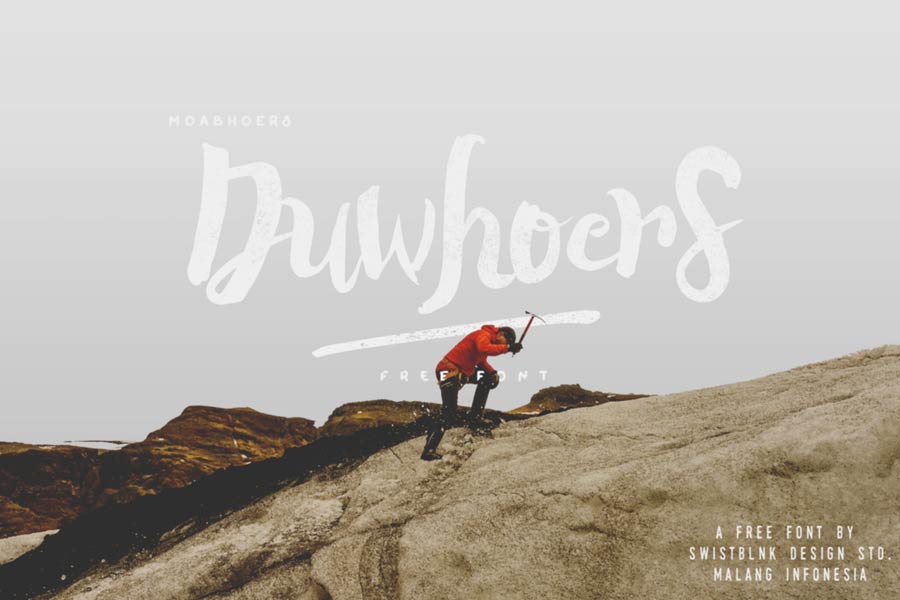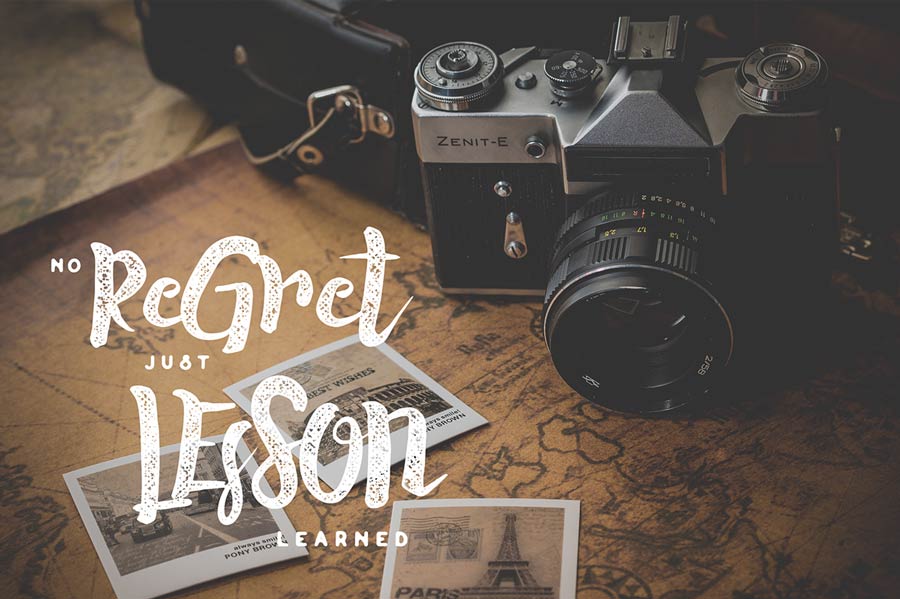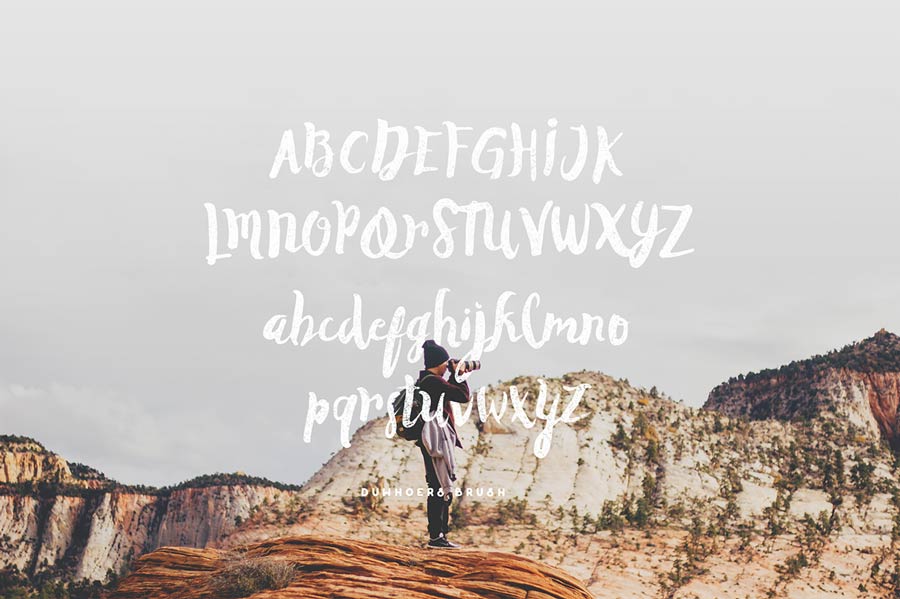
Duwhoers is modern looking brush font with a taste of vintage handmade feel. This font was completed with sandpaper-ish texture on it, giving the eroded and rugged personality to it. Duwhoers works great with old-school and retro color palettes. You can download this font for free and you can use it for personal and commercial works.